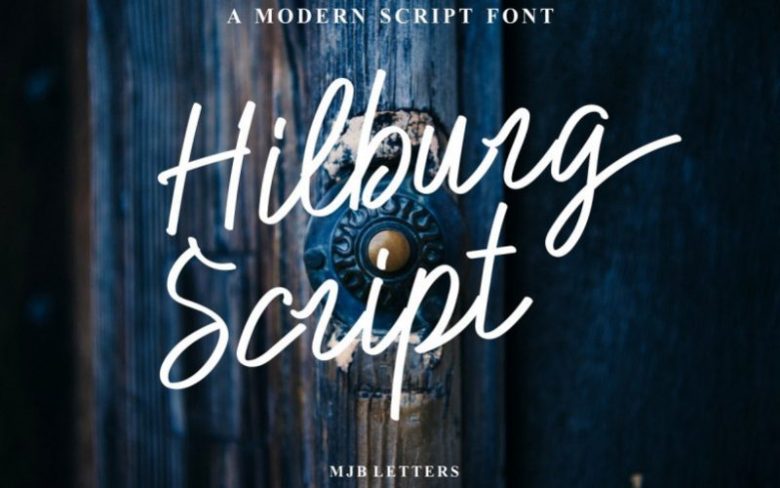
Hilburg Script Font
The Hilburg Script is a classy modern script fon. Hilburg Script is easily to use for your work ; Branding, Logo Design, Lettering, Clothing, Poster and others.